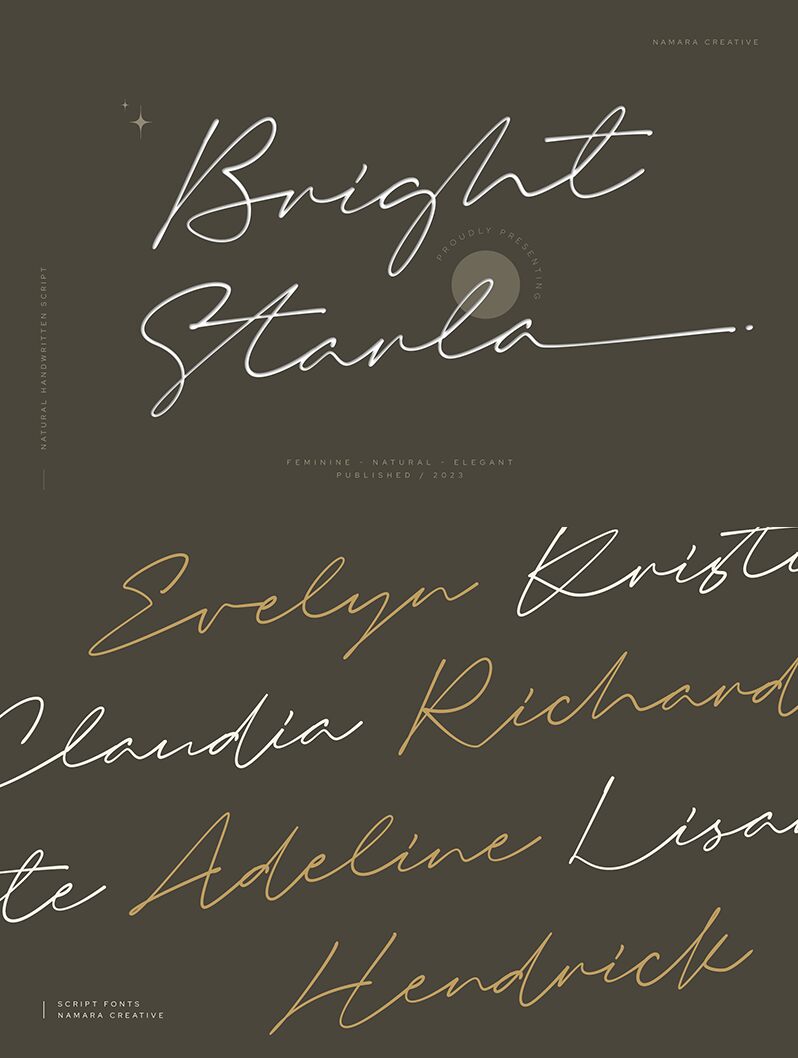
Bright Starla font is a free handwritten font developed by Namara Creative. The style looks contemporary and refined with an artistic touch inspired by nature. While primarily based on the alphabet, it features a limited range of characters and punctuation for various uses. Hand-crafted with love and care, it is what stands behind its smooth and personal feel.
This flowing elegant font is a versatile tool that can be useful in many projects of various natures. Use the font in your personal branding designs, on wedding invites, or any other invitation cards, on greeting cards, posters, brochures, packaging, or labels. Also try it out on business cards, for magazine or book covers, and on jewelry or cosmetic branding.
An elegant natural handwritten script that radiates sophistication, grace, and refinement. It is the perfect choice for creating designs that require a natural handwritten script touch and luxurious styles.